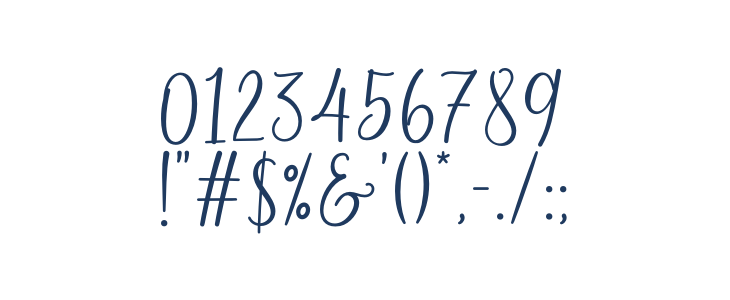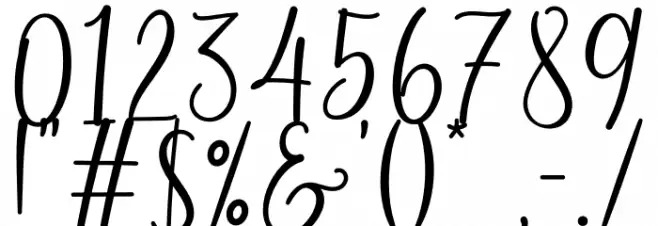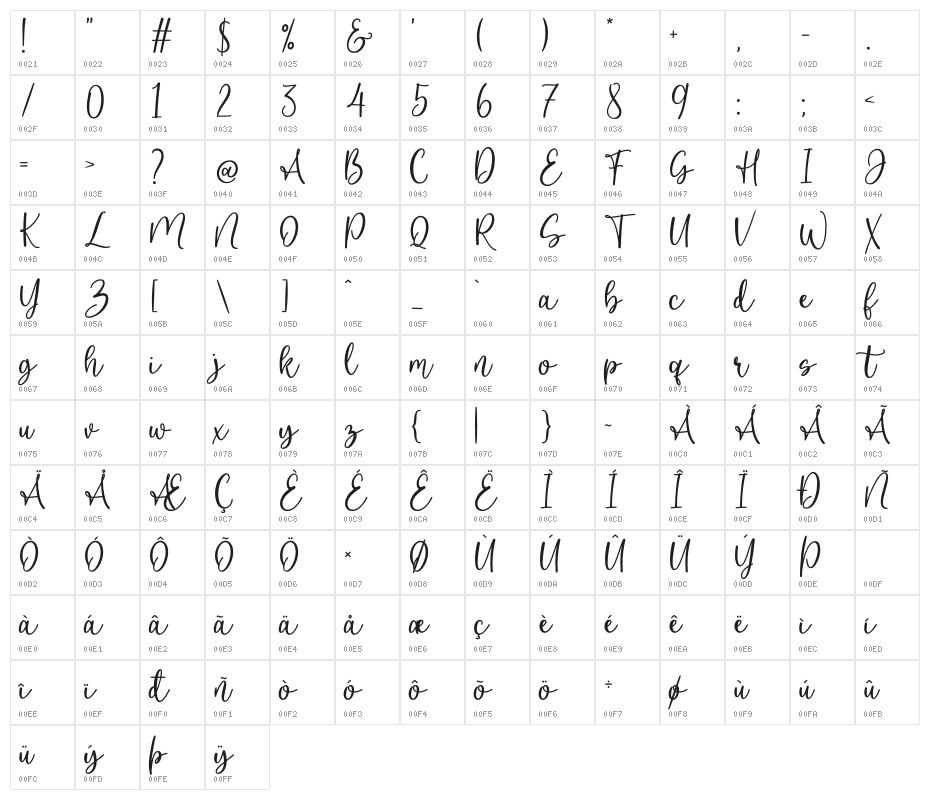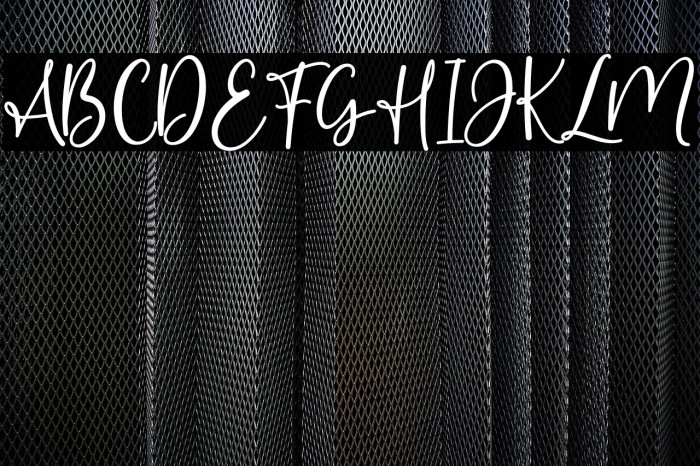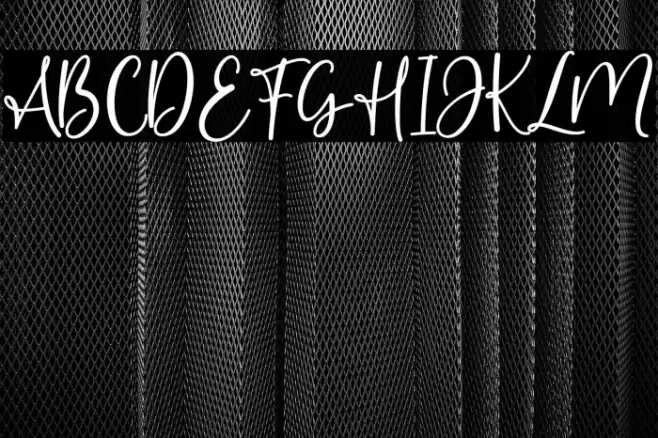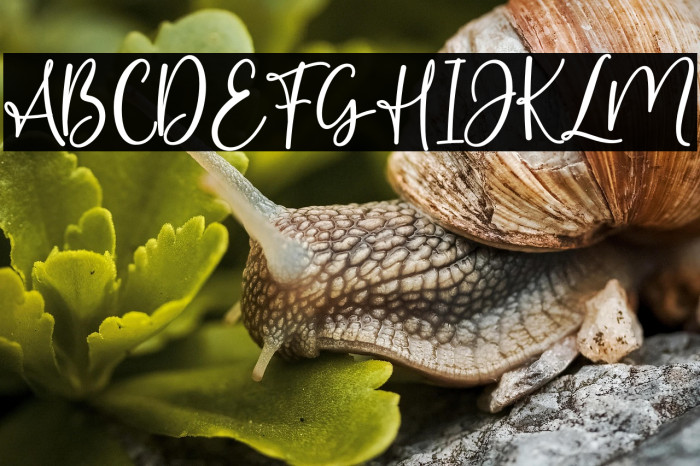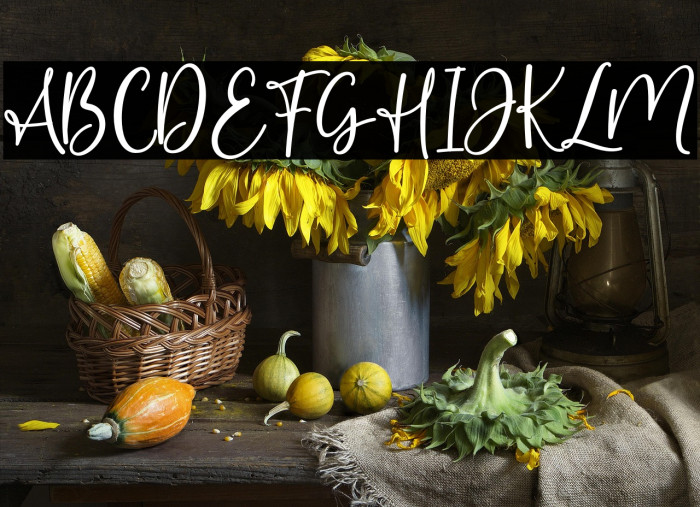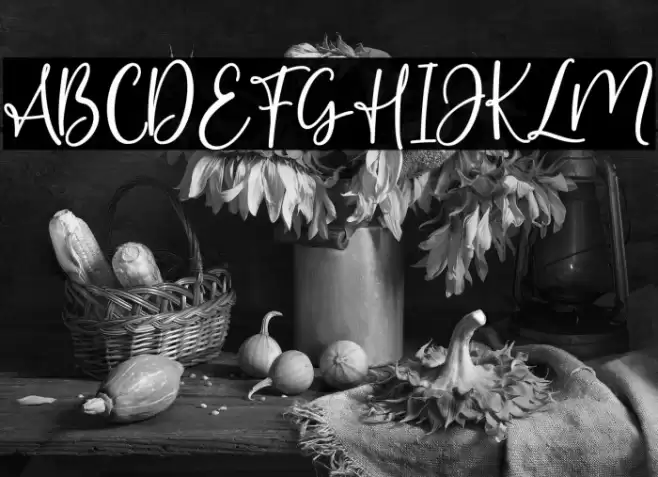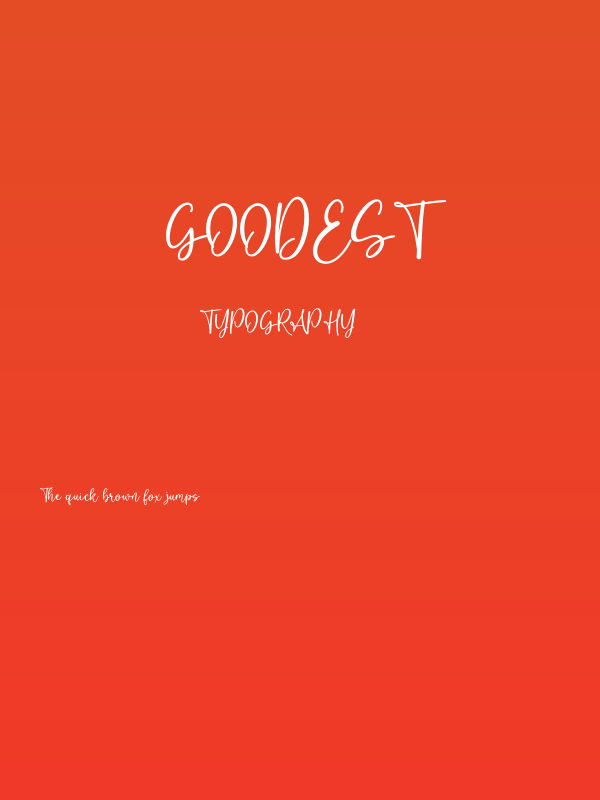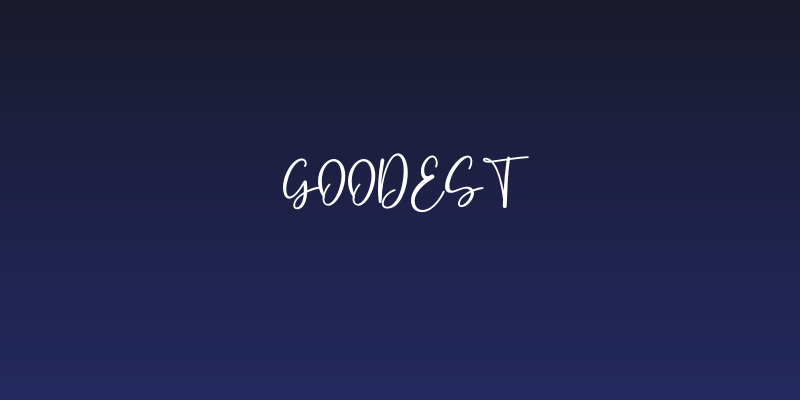
Goodest Font
Goodest Description
This font exudes a playful and energetic vibe with its handwritten script style. The letters are fluid and connected, giving a sense of movement and personality. The uppercase letters maintain a consistent height, while the lowercase letters vary slightly, adding to the casual and informal feel. The numbers and special characters are designed to match the overall style, with smooth curves and a touch of whimsy. This font is perfect for projects that require a personal touch, such as invitations, greeting cards, or branding materials that aim to convey friendliness and approachability.
| Proposed Projects | Ideal for invitations, greeting cards, and branding materials. |